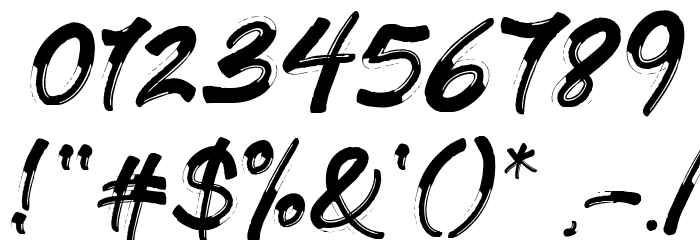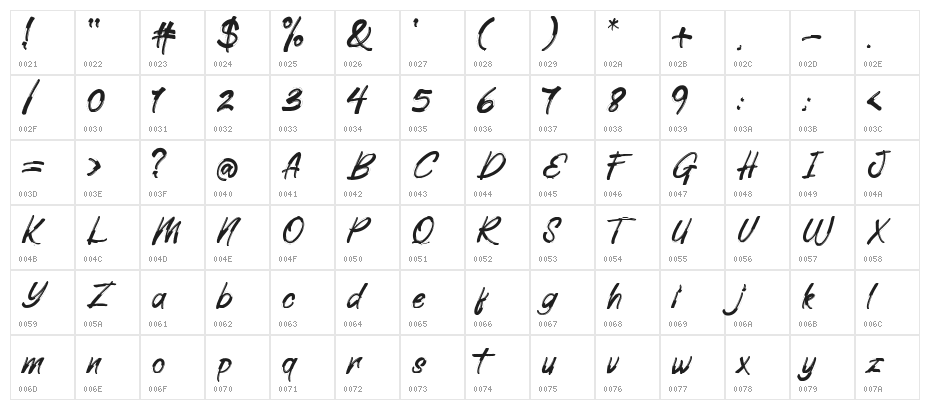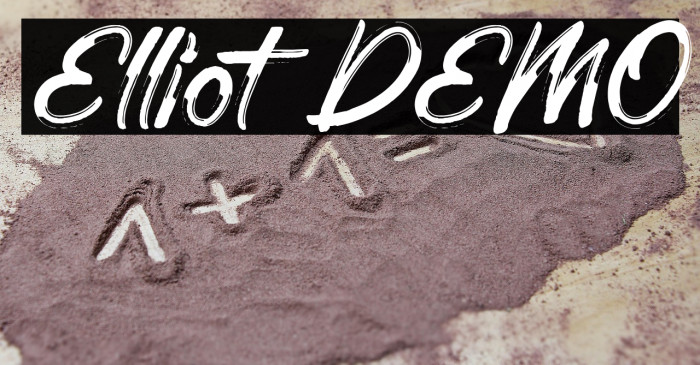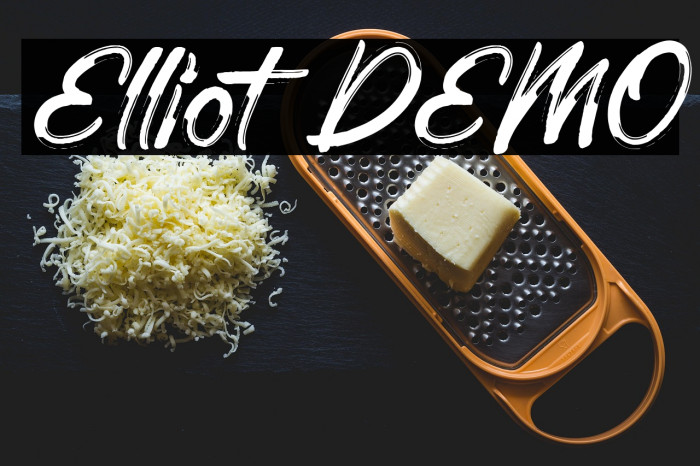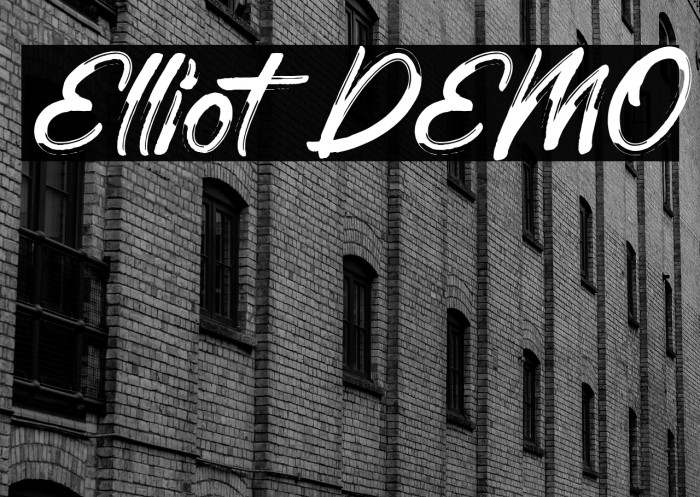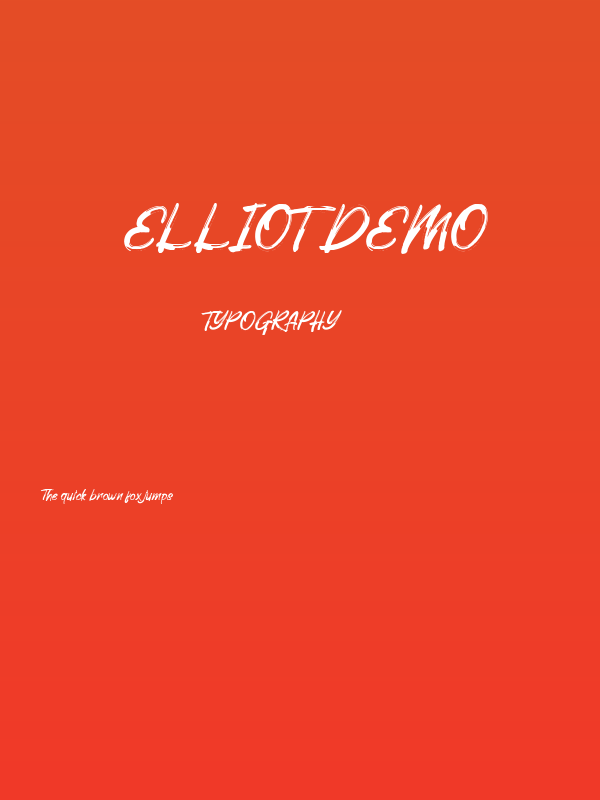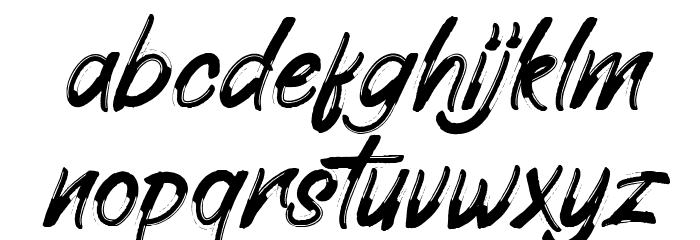
Elliot DEMO Font
Elliot DEMO Description
This font exudes a dynamic and energetic vibe, characterized by its bold, brush-like strokes that convey a sense of movement and fluidity. The uppercase and lowercase letters maintain a consistent style, with slightly exaggerated curves and angles that add to its expressive nature. The numerals and special characters follow the same design principles, ensuring a cohesive look across all glyphs. The font's overall appearance is both artistic and modern, making it suitable for creative projects that require a touch of flair and personality.
| Proposed Projects | Ideal for branding, posters, album covers, and any project that benefits from a bold, artistic touch. |